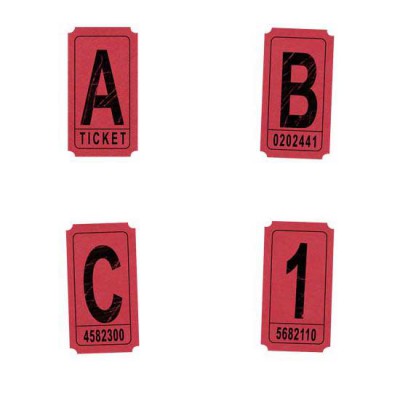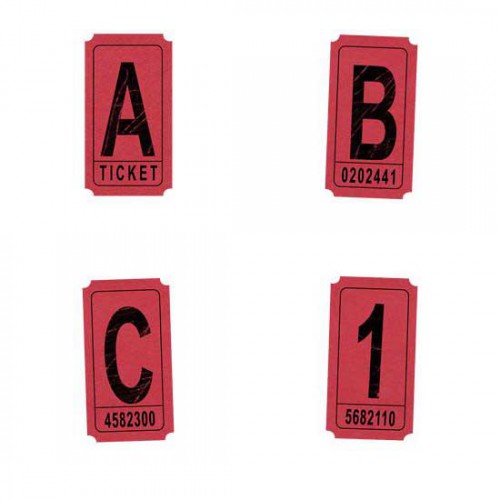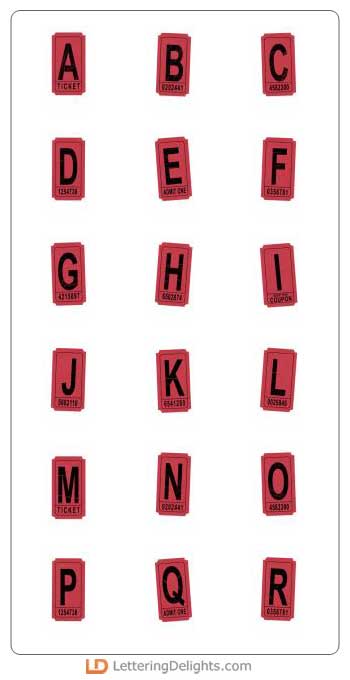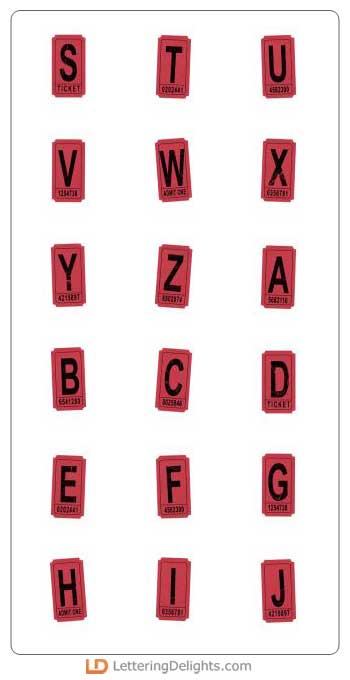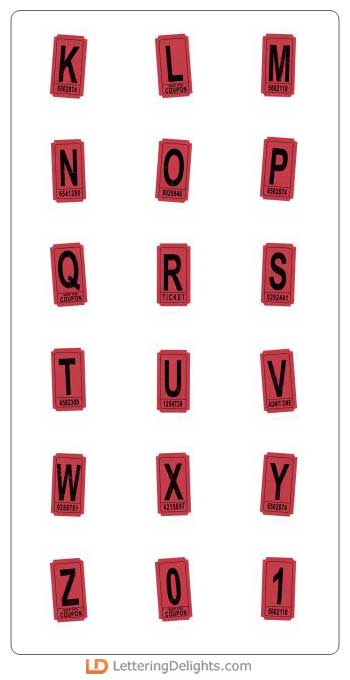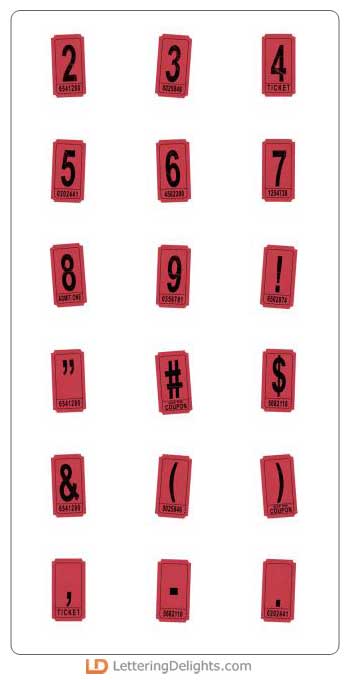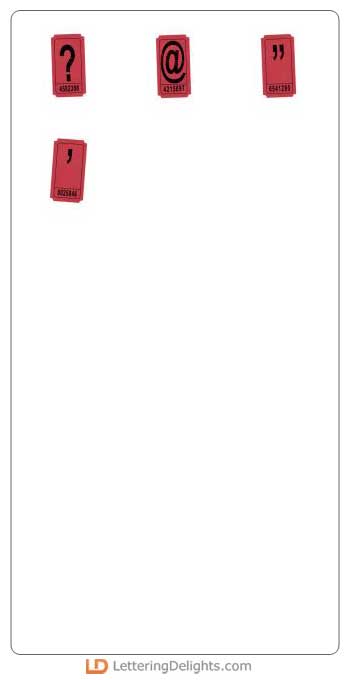
Here's your ticket to darling pages! The Ticket Alphabets come in red, blue and beige, so you can blend with just about any color scheme...or get all three and mix and match! Be sure to 'admit one' (or all three) to your creative tool chest today.